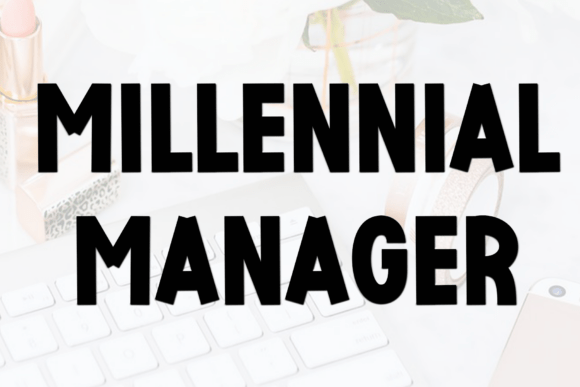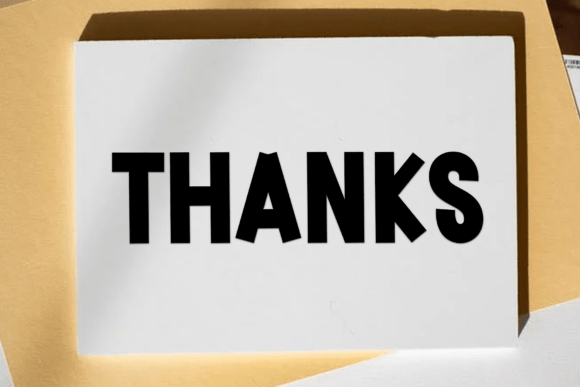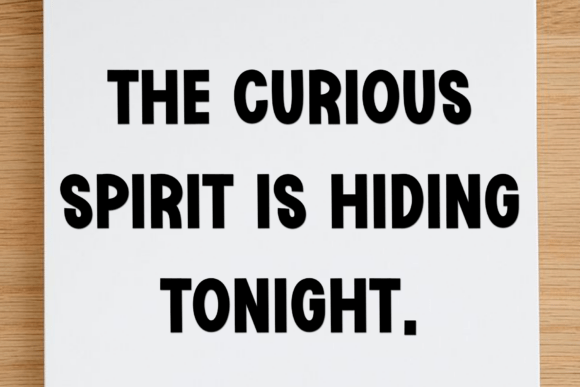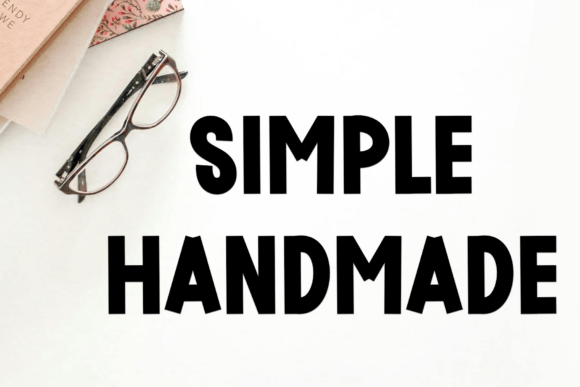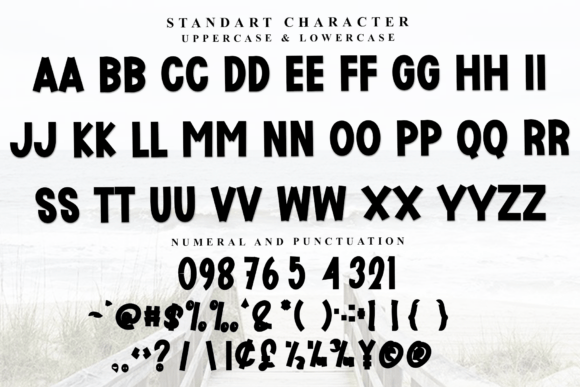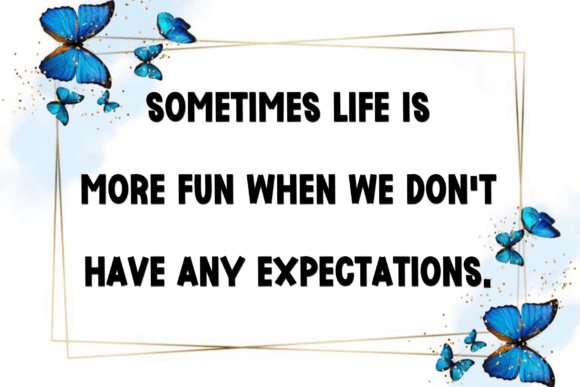
Candies Font: The Sweetest Addition to Your Design Projects
Are you looking for a font that can add a touch of sweetness and uniqueness to your design projects? Look no further than Candies Font! This beautiful and eye-catching font is designed with a soft, unique touch that sets it apart from other fonts. Its distinctive strokes give it a special character, making it meaningful and versatile for future use.
What Makes Candies Font So Special?
Candies Font is a one-of-a-kind font that is perfect for designers, crafters, and creatives who want to add a personal touch to their work. The font’s soft and unique design makes it stand out from other fonts, and its versatility ensures that it can be used in a wide range of projects. Whether you’re working on a graphic design project, a crafting project, or any other type of creative work, Candies Font is sure to impress.
Key Features of Candies Font
- Unique and Eye-Catching Design: Candies Font has a distinctive design that sets it apart from other fonts. Its soft and unique touch makes it perfect for adding a personal touch to your projects.
- Versatile and Meaningful: The font’s distinctive strokes give it a special character, making it meaningful and versatile for future use.
- Wide Range of Characters: Candies Font comes with a wide range of characters, making it perfect for design projects, crafts, and other creative works.
Candies Font is perfect for designers and crafters who want to add a personal touch to their work. The font’s unique design makes it ideal for a wide range of projects, including:
- Graphic Design Projects: Use Candies Font to add a touch of sweetness to your graphic design projects, such as logos, brochures, and posters.
- Crafting Projects: Add a personal touch to your crafting projects, such as handmade cards, gift tags, and scrapbooking pages.
- Digital Art and Illustrations: Use Candies Font to add a touch of whimsy to your digital art and illustrations.
Why Choose Candies Font?
There are many reasons why you should choose Candies Font for your design projects and crafts. Here are just a few:
- Unique and Eye-Catching: Candies Font is a one-of-a-kind font that is sure to grab attention.
- Versatile: The font is versatile and can be used in a wide range of projects.
- Perfect for Creative Projects: The font is perfect for designers, crafters, and creatives who want to add a personal touch to their work.